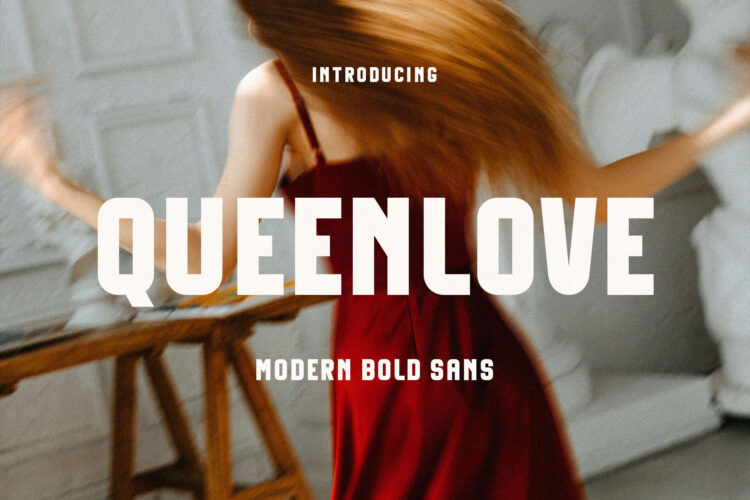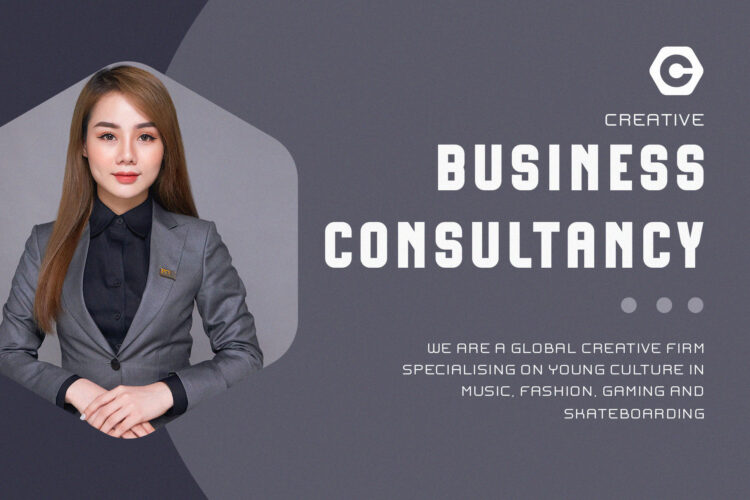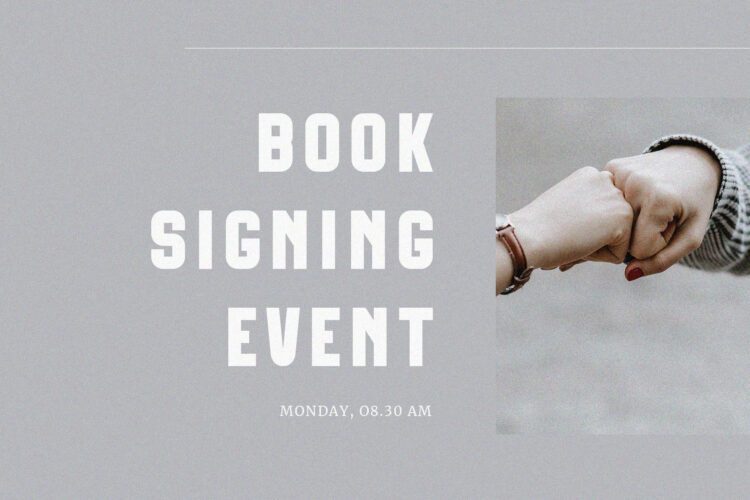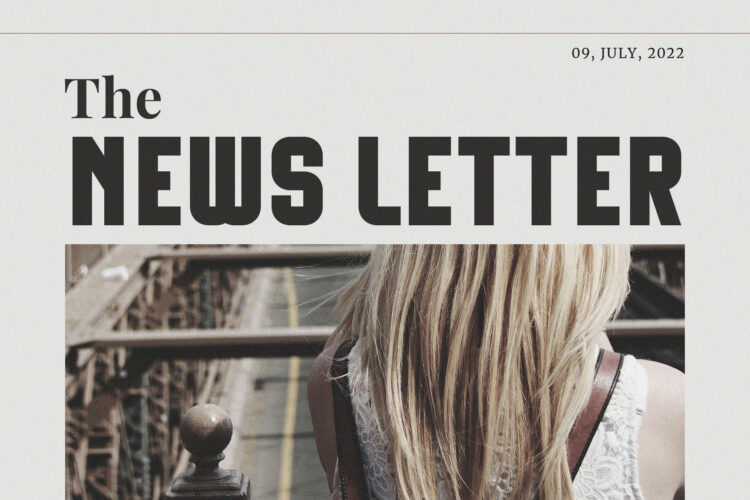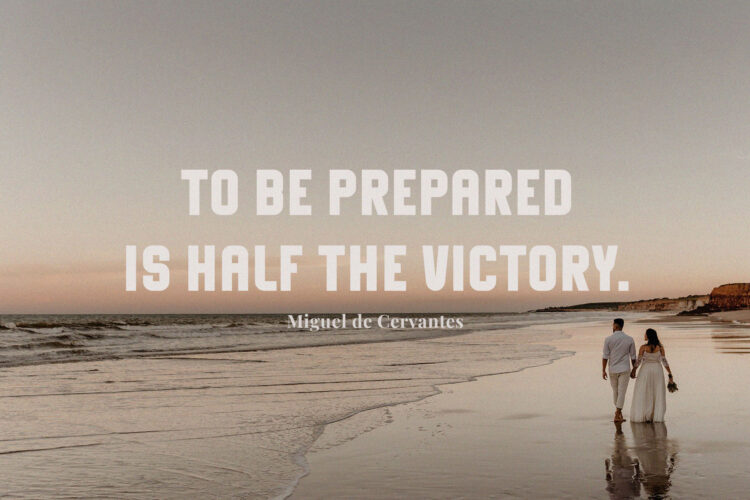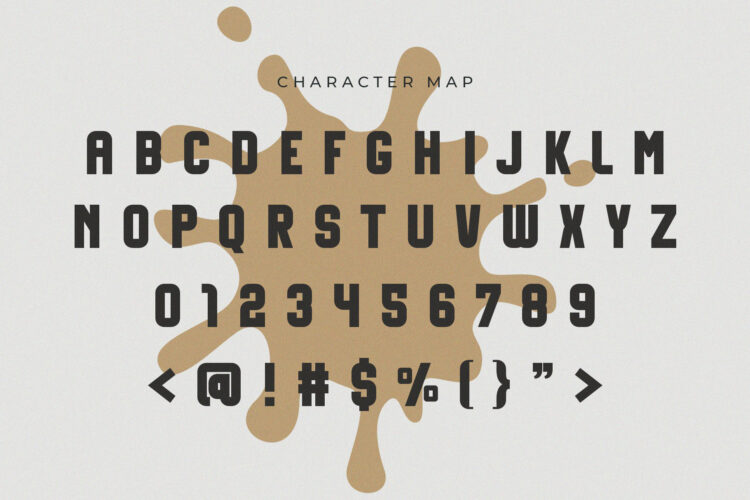
Introducing Queenlove Modern Bold Sans.
Queenlove is a modern typeface and classy, best used as a display for headings, logos, branding, magazines, product packaging and invitations. Queenlove come with clean lines and smooth curves give any project an extra touch of class.